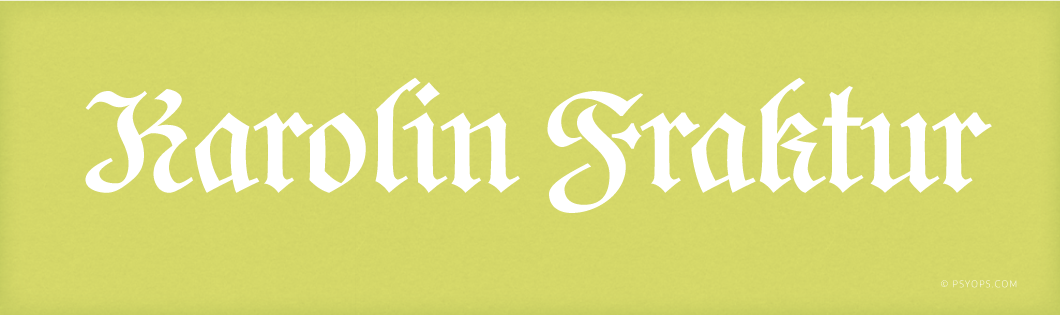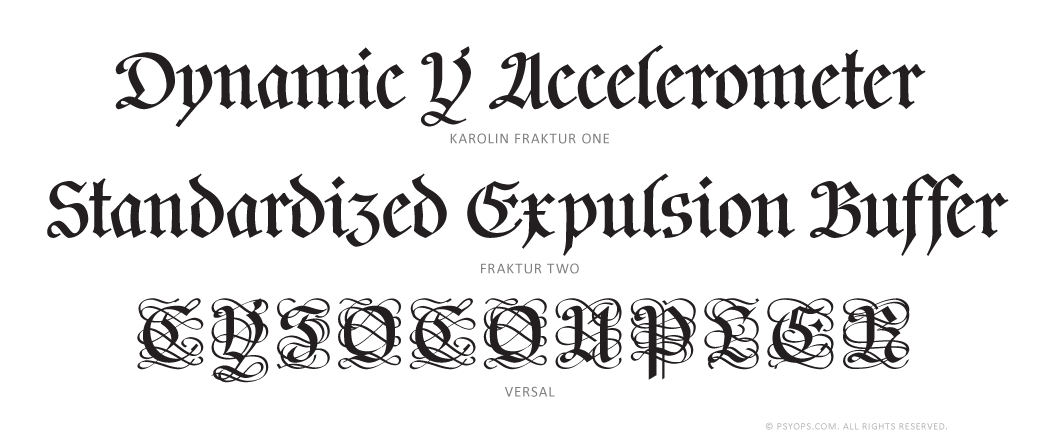
Karolin is a revival of sorts: its historical model is the calligraphed and then woodcut titling of the Swedish King Charles XII’s Bible, printed in 1703. This is a strict, almost severe late Baroque Fraktur, and the more legible for that. Two sets of initial caps are also available in the Versal font, one of them decorated, to add the occasional touch of pomp beloved by this militaristic age, as a change from its regular diet of stale black bread and cannonballs. In the regular Fraktur fonts are found both the traditional ‘long s’, and a modernized ‘k’ as an alternative to the now unfamiliar traditional form. Mild variants of the ‘d’ and ‘z’also included. All the caps have been cleaned up for better legibility in this roman-dominated age. Trifles like the © @ $ Û &c have also been built to facilitate contemporary usage.